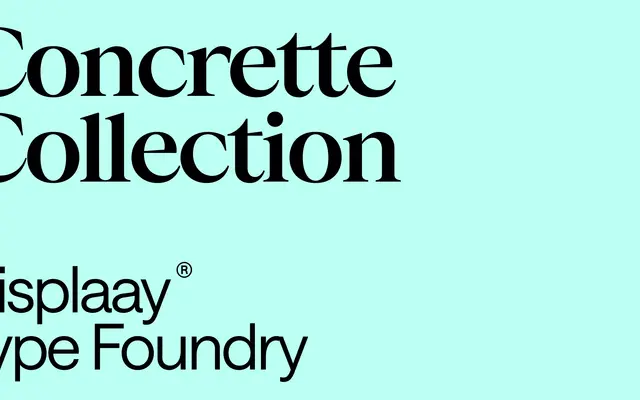
A brutalist-themed sans-serif collection from Displaay, structured around three contrast grades and eight weights with variable font support across two axes.
Concrette organises 48 styles across three families distinguished by contrast level: S for running text, M for mid-scale use and XL for headline work. Each family runs eight weights from Thin to Heavy with matching italics, and the variable font allows continuous interpolation along weight and contrast axes. The brutalist framing, referencing raw concrete and Roman capital construction, gives the family a clear visual identity suited to editorial and architectural branding contexts.
Concrette is a sans-serif with a brutalist aesthetic and geometric underpinning, drawing on Roman capital proportions and raw concrete architecture as its conceptual framework. The three contrast variants (S, M, XL) suggest a family spanning text to display use without moving into slab or serif territory.